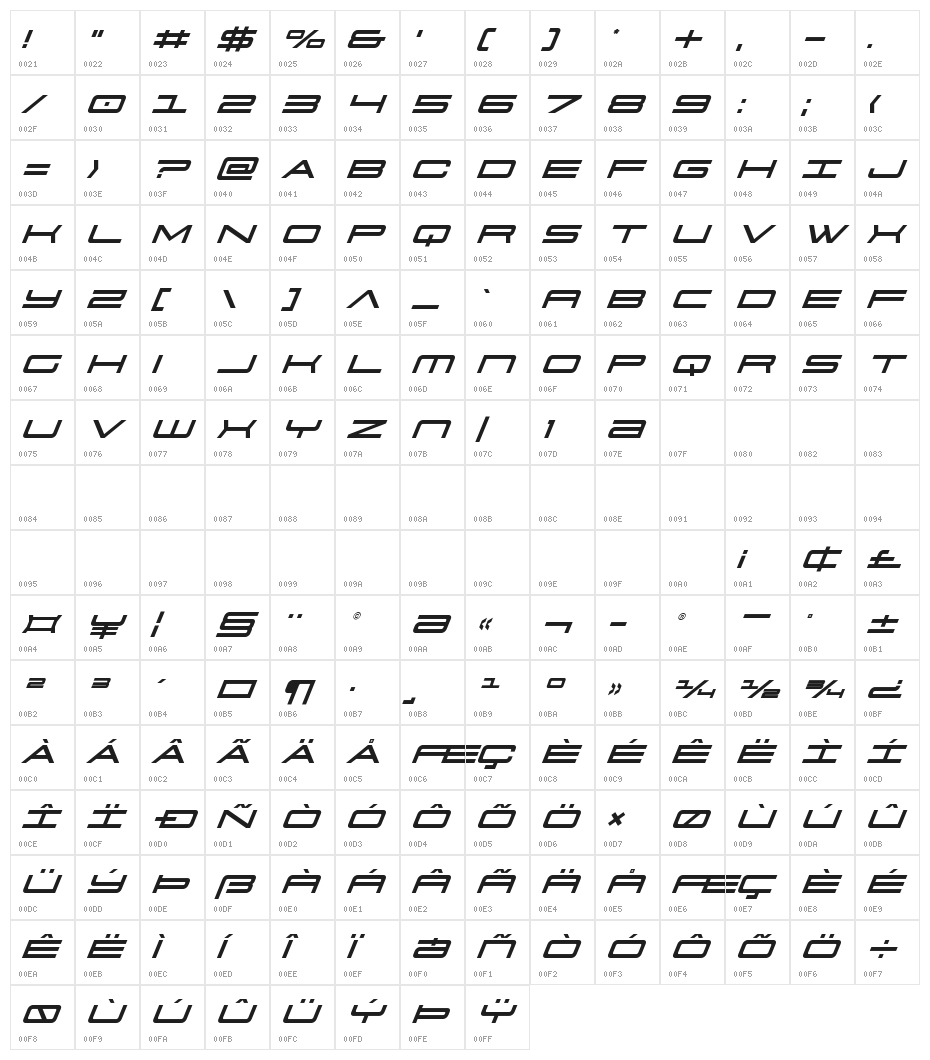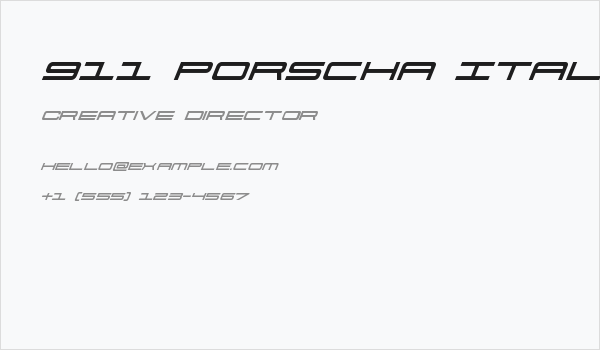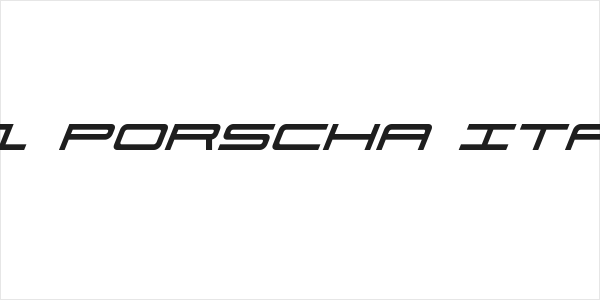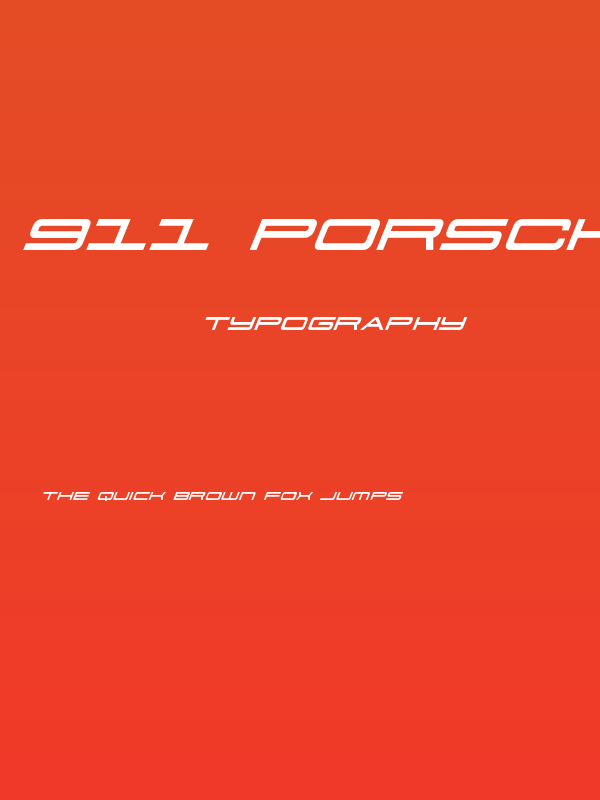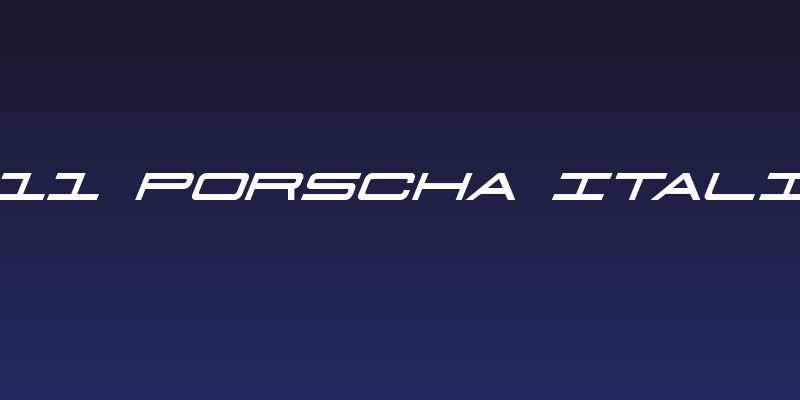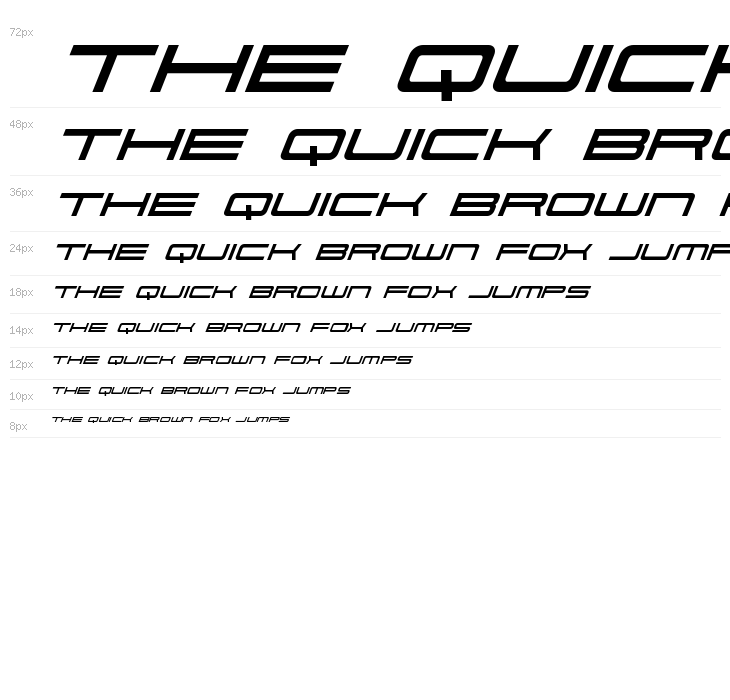
911 Porscha Italic Font
911 Porscha Italic Description
This font features a sleek, italicized design with a modern and aerodynamic feel. The characters are slightly slanted, giving a sense of motion and speed. The strokes are clean and uniform, with a consistent thickness that maintains readability while adding a touch of elegance. The font's design is reminiscent of automotive branding, making it ideal for projects that require a sense of sophistication and dynamism. The numbers and special characters are designed to match the overall style, ensuring a cohesive look across all text elements.
| Use Case | Logos, Headlines, Branding |
| Proposed Projects | Ideal for automotive branding, sports-related designs, and modern tech interfaces. |